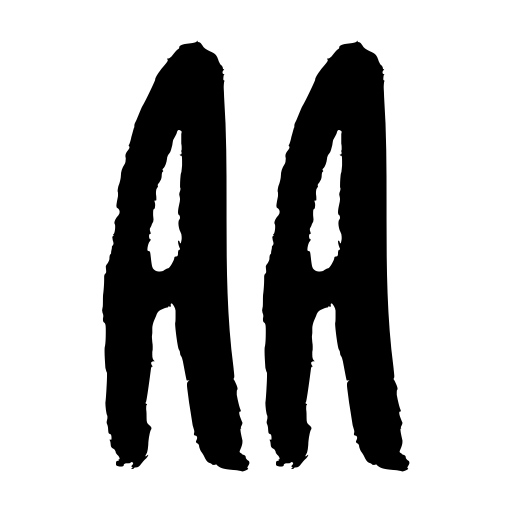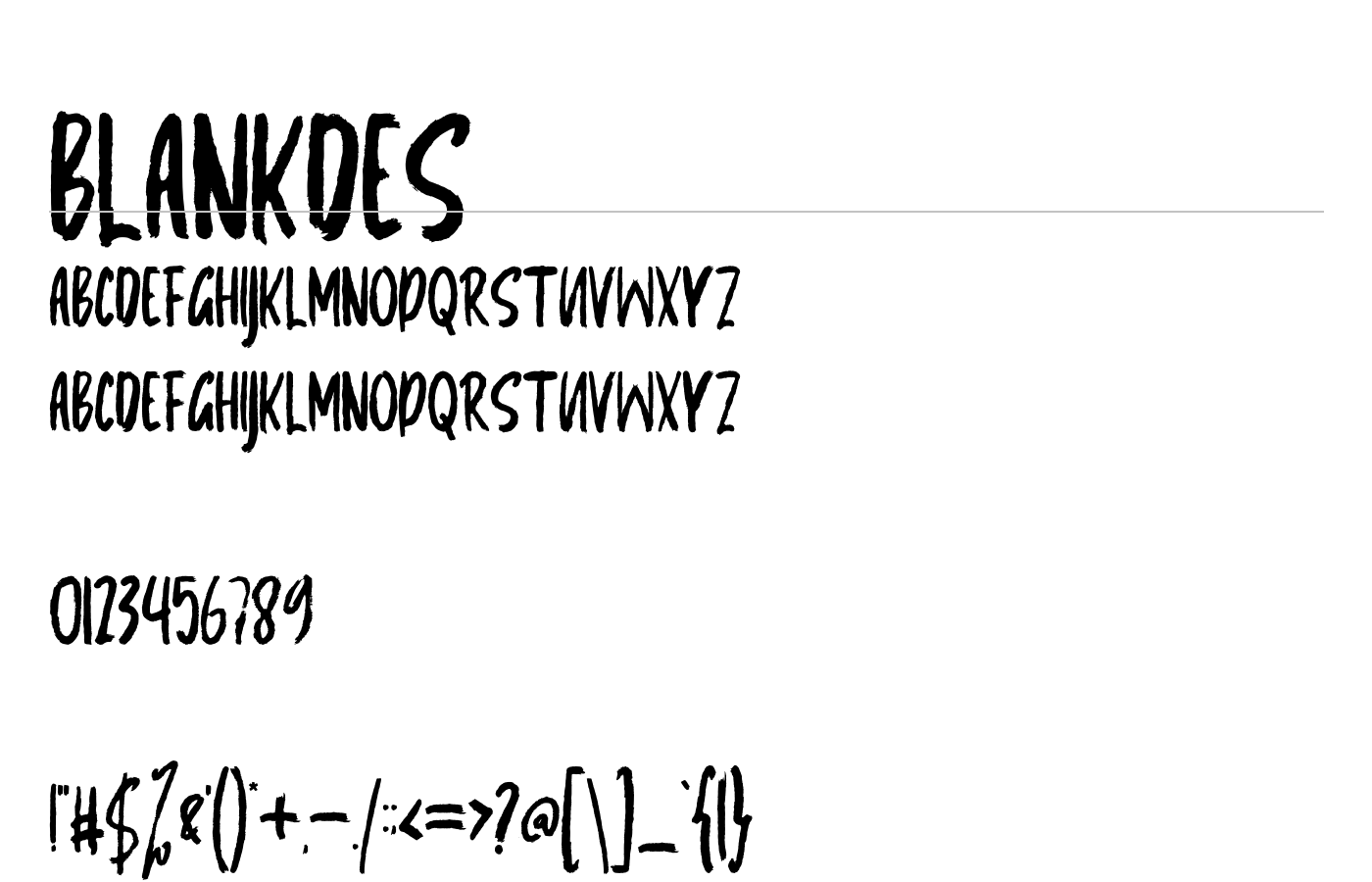
Blankdes Font is a bold, hand-drawn sans serif typeface with a rough, textured style that gives it a lively, organic feel. Its tall, narrow letterforms and irregular edges make it perfect for playful, informal designs, adding a touch of personality to headlines, posters, and creative branding projects. This font works well where a casual, artistic look is desired, standing out with its unique, handmade charm.
Blankdes Font
About Blankdes Font